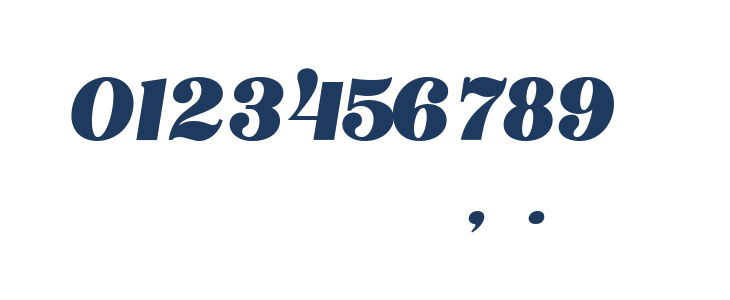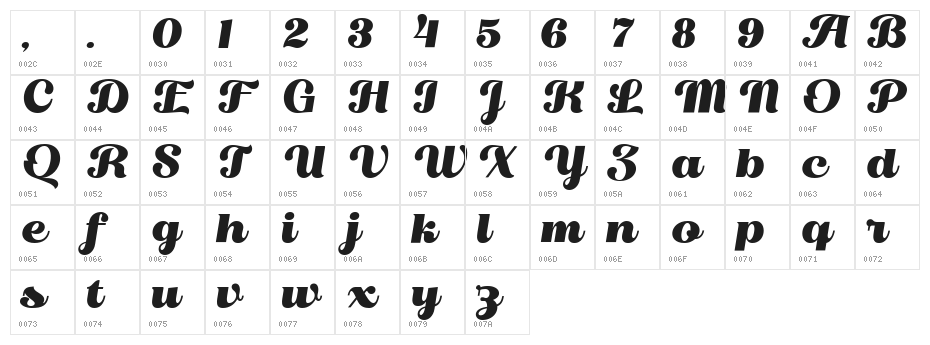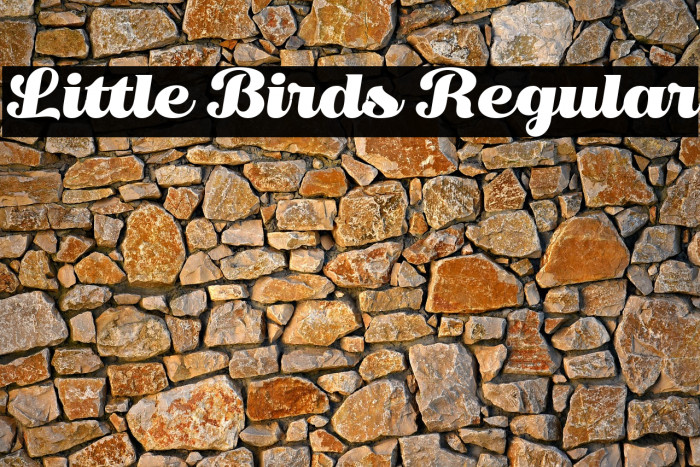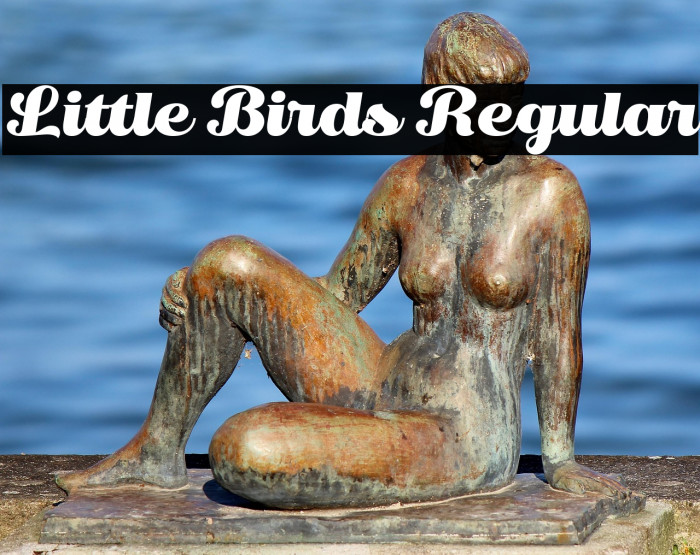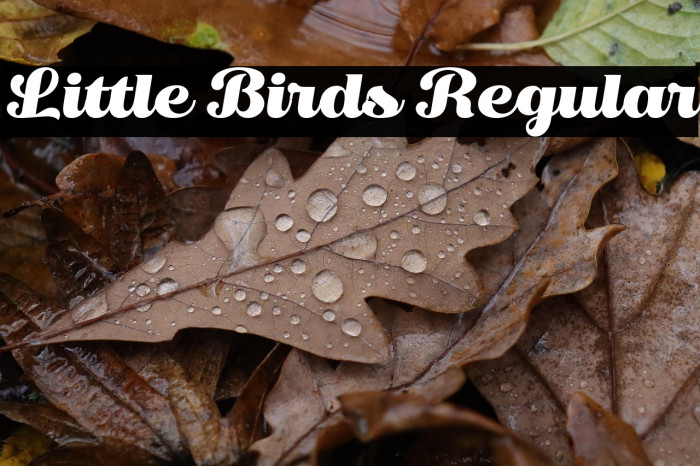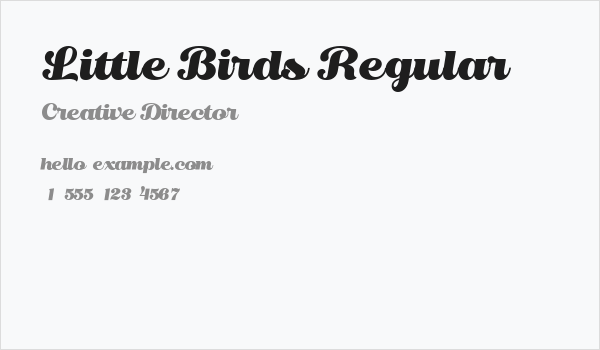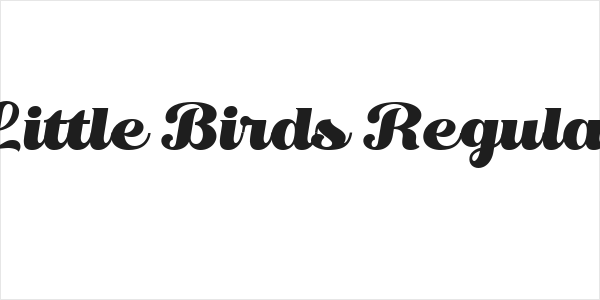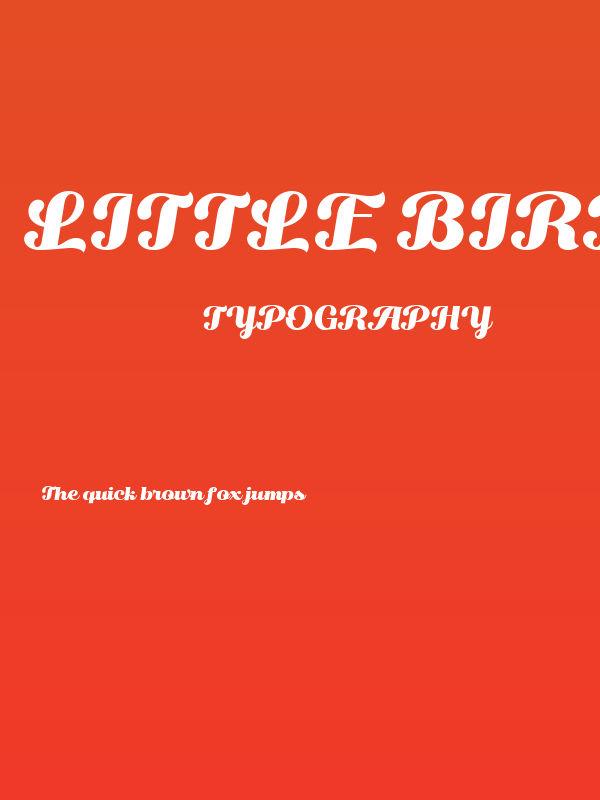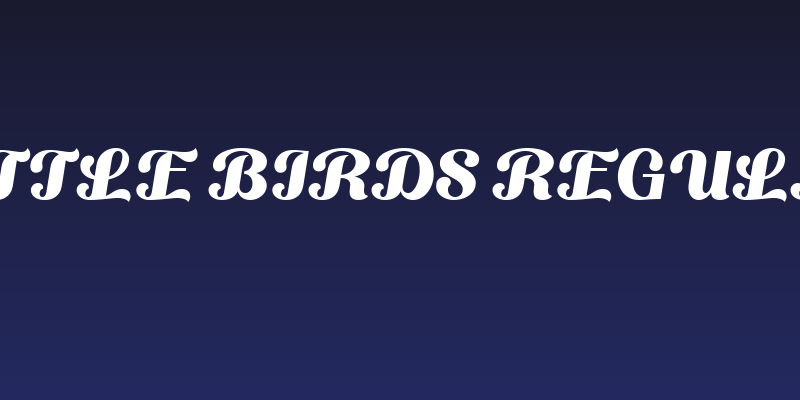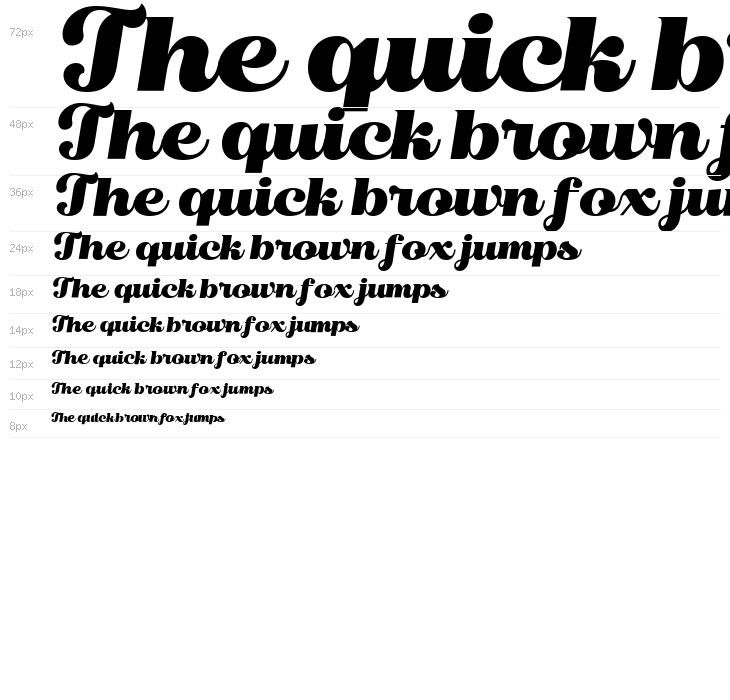
Little Birds Regular Font
Little Birds Regular Description
This font features a bold and flowing script style with a decorative flair. The uppercase letters are characterized by their sweeping curves and elegant loops, giving them a sense of movement and grace. The lowercase letters maintain a consistent style, with rounded forms and smooth transitions between strokes. The numerals are equally bold, with a playful yet sophisticated appearance. This font's overall design is both eye-catching and versatile, making it suitable for a variety of creative projects.
| Proposed Projects | Ideal for wedding invitations, branding, logo design, and decorative headings. |